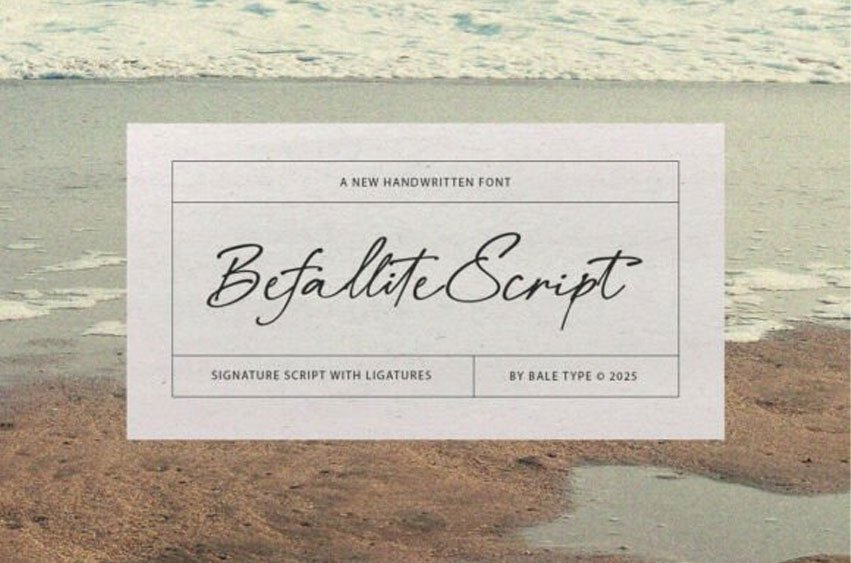
Befallite Script Font is a graceful and authentic signature script typeface, capturing the organic, confident flow of genuine handwriting.
This beautiful Befallite Script font features a natural, slightly fast-paced movement and fluid, continuous connections that make it perfect for adding a personalized, custom touch to any design. Its sophisticated stroke variations and clean, legible structure ensure it looks professional while retaining its handcrafted charm.
The versatile Befallite Script typeface includes a wide array of ligatures and alternative glyphs, allowing for unique customization to perfectly simulate true penmanship. Ideal for watermarks, photography branding, wedding invitations, custom stationery, and logotype design, the high-quality Befallite Script font guarantees an elegant, signature finish that conveys authenticity and refined style.